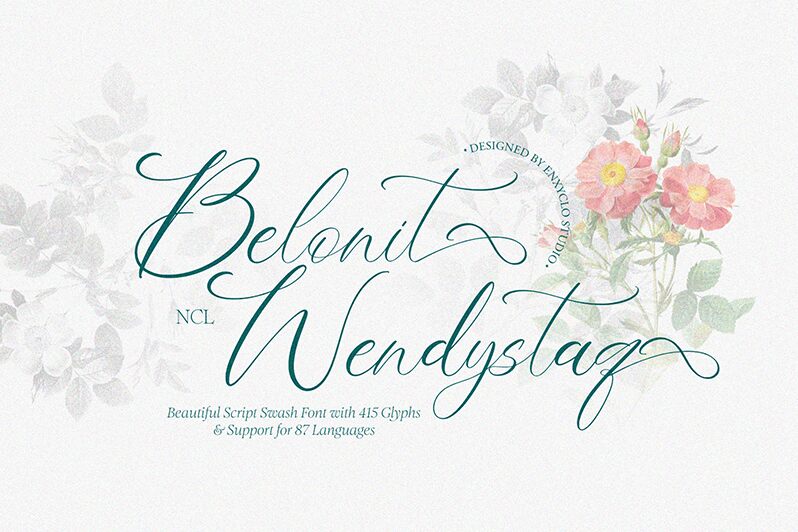
NCL Belonit Wendystaq font by Enxyclo Studio is a free calligraphy font that exudes elegance and sophistication. Its unique charm is expressed in the fluidity and intricacy of each letter, making it ideal for artistic and decorative applications. The font captures a flowing and versatile flair, making it adaptable for a wide range of uses.
This expressive font is best suited for wedding invitations, greeting cards, logos, branding, editorial layouts, packaging, posters, stationery, and more. Its romantic and classical feel adds a graceful and refined touch wherever it is applied.